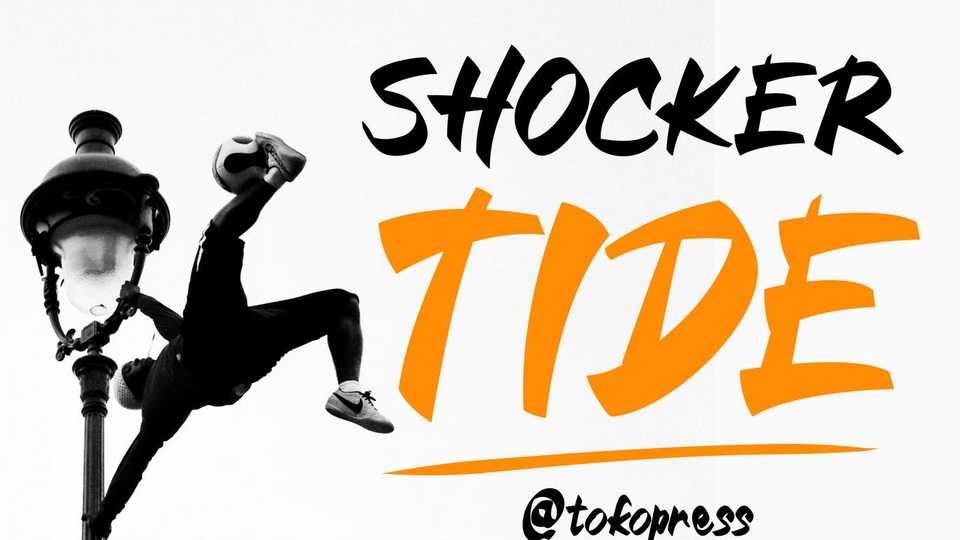
Download Shocker Tide font, a graffiti typeface. Like a roaring thunder that shouting messages, Shocker Tide bring the edgy and harsh word into reality.